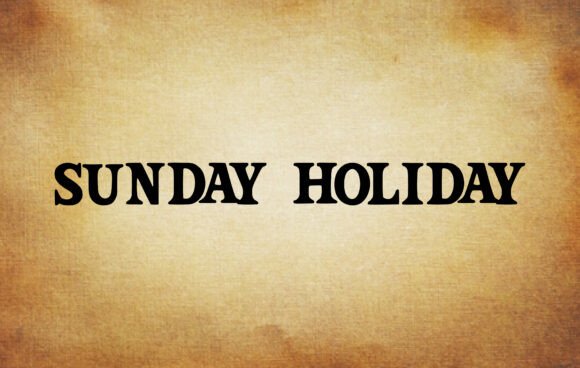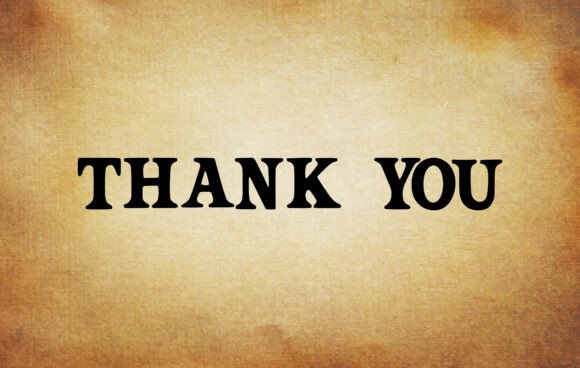
Unleash Your Creativity with Biker Font: The Ultimate Design Companion
Are you a designer, crafty enthusiast, or simply someone who loves to express themselves through creative projects? Look no further! Introducing Biker Font, a versatile and stylish typeface designed to elevate your designs to new heights. This font is crafted to be a true favorite among designers, and its exceptional legibility and aesthetic appeal make it perfect for a wide range of applications.
What Makes Biker Font Stand Out?
Biker Font boasts a unique blend of style and functionality, making it an excellent choice for various design projects. Here are some key features that set it apart:
• Legibility: Biker Font is designed to be easily readable, whether used as a title or body text. Its clear and concise design ensures that your message is conveyed effectively.
• Versatility: This font is perfect for a multitude of design applications, including magazine headlines, t-shirts, social media graphics, branding materials, wedding invitations, cards, and more.
• Aesthetic Appeal: Biker Font has a distinctive look that adds a touch of personality to any design. Its stylish and modern appearance is sure to capture attention and leave a lasting impression.
Endless Design Possibilities with Biker Font
The possibilities are limitless when working with Biker Font. Here are some design ideas to get you started:
• Magazine Headlines: Use Biker Font to create eye-catching headlines that grab readers’ attention and draw them into your story.
• T-Shirts and Apparel: Design custom t-shirts, hoodies, and other apparel with Biker Font for a unique and stylish look.
• Social Media Graphics: Create engaging social media graphics, such as Facebook posts, Instagram stories, and Twitter headers, using Biker Font.
• Branding Materials: Develop a consistent brand identity with Biker Font, perfect for logos, business cards, and letterheads.
• Wedding Invitations and Cards: Add a personal touch to wedding invitations, birthday cards, and other special occasion cards with Biker Font.
Why Choose Biker Font?
With so many fonts available, why choose Biker Font? Here are just a few reasons why designers and crafters love this versatile typeface:
• Easy to Read: Biker Font is designed for maximum legibility, ensuring that your message is conveyed clearly.
• Highly Versatile: Use Biker Font for a wide range of design applications, from digital projects to print materials.
• Unique Style: Biker Font has a distinctive look that sets it apart from other fonts, adding a touch of personality to your designs.
In conclusion, Biker Font is a must-have for designers and crafters looking to elevate their creative projects. Its exceptional legibility, versatility, and aesthetic appeal make it the perfect choice for a wide range of design applications. So why wait? Get creative with Biker Font and take your designs to the next level!